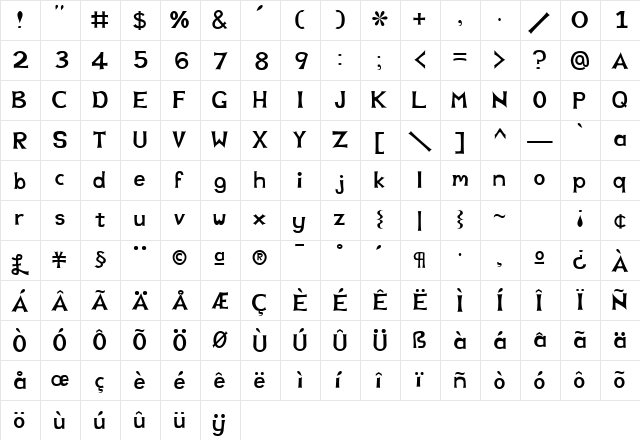
Spooky Regular Font Preview
Spooky Regular
Spooky Regular Font Details
Design Context for Spooky Typeface
Spooky offers clean, dependable letterforms without strong stylistic allegiance, making it a practical choice for designers who need flexibility.
Pro Tip: Pair Spooky with a font of contrasting weight or personality to build a more expressive typographic hierarchy.